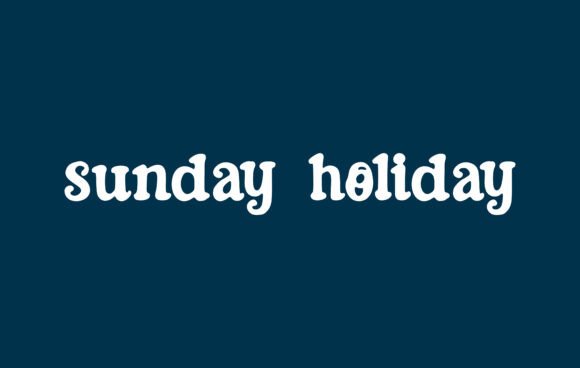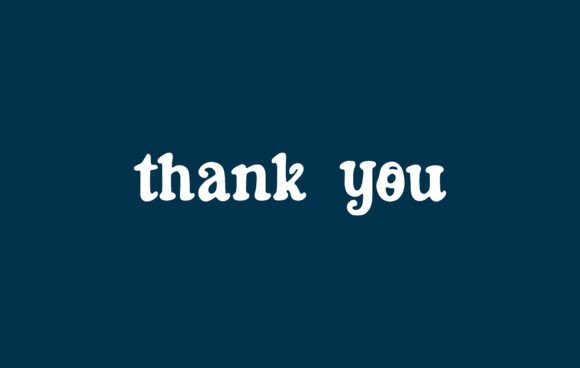
Introduction to Nebraska Font
Nebraska font is an authentic handwritten font with a romantic touch.
Key Features of Nebraska Font
Why Choose Nebraska Font?
Nebraska Font offers exceptional quality and versatility, making it a valuable addition to your design toolkit. Whether you’re creating for personal projects or commercial use, Nebraska Font delivers professional results.